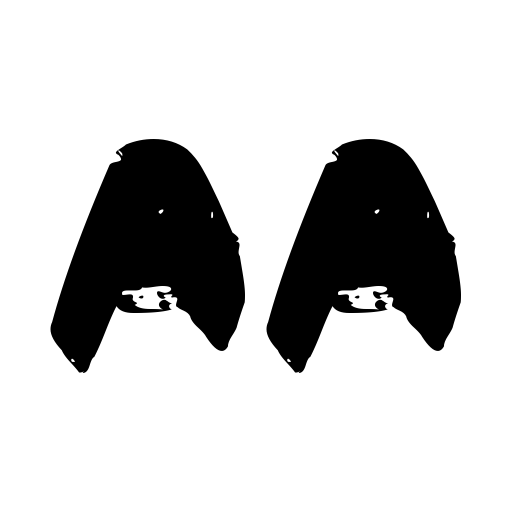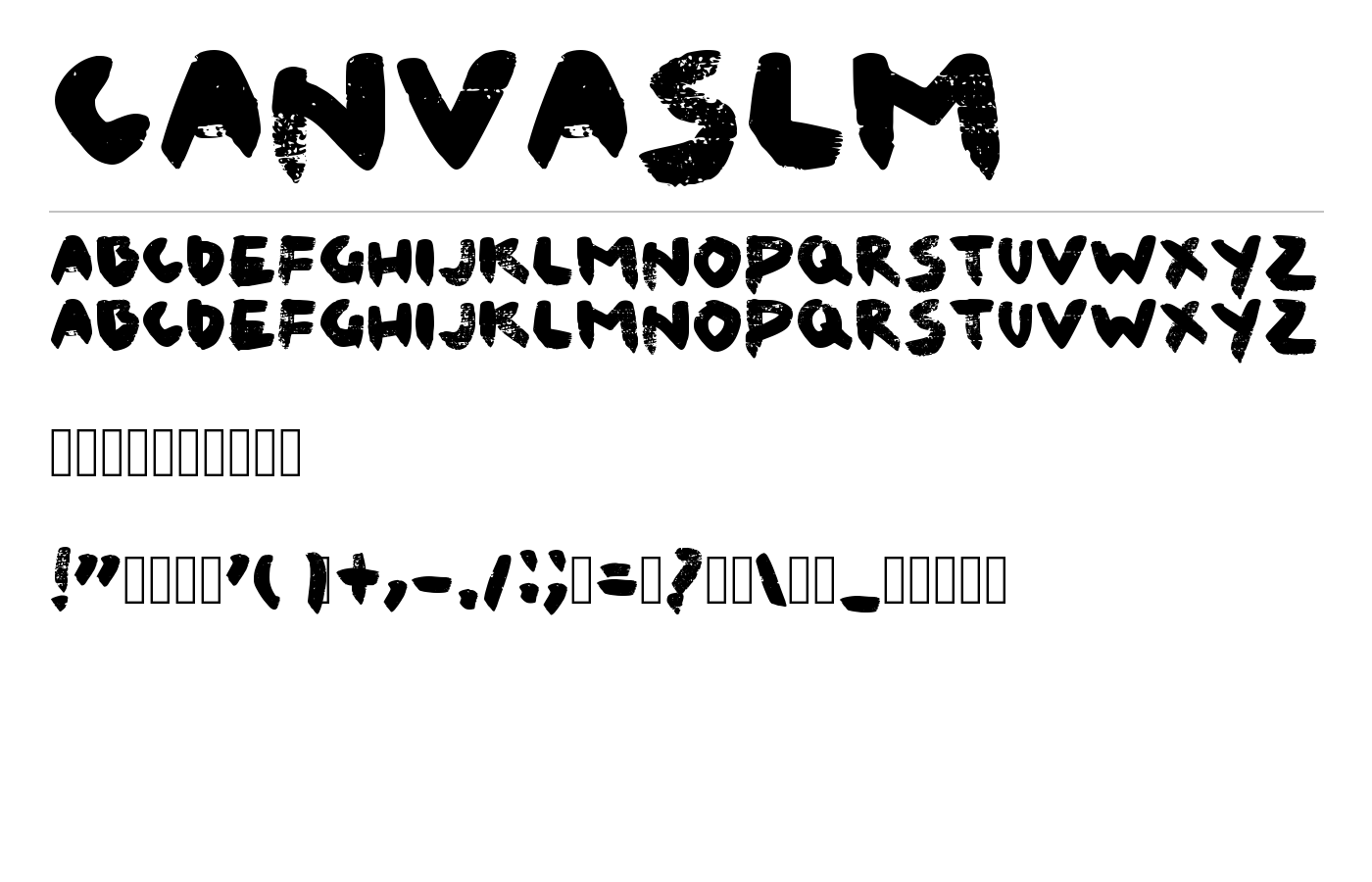
Canvaslm is a bold, hand-painted style sans serif font with a rough, textured feel that brings energy and creativity to any design. Its uneven strokes and organic shapes make it ideal for artistic, casual, or playful branding and headlines where a distinctive, expressive look is desired. This font works well for posters, logos, and creative projects seeking a strong, handcrafted vibe.
Canvaslm Font
About Canvaslm Font